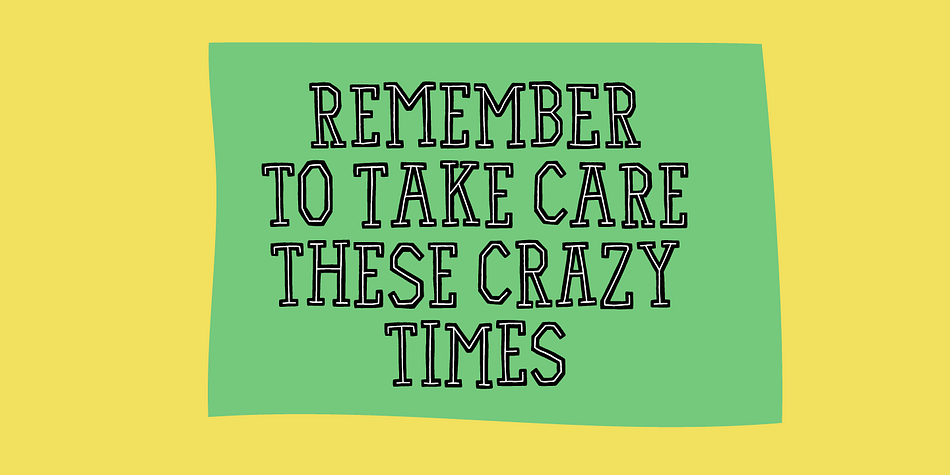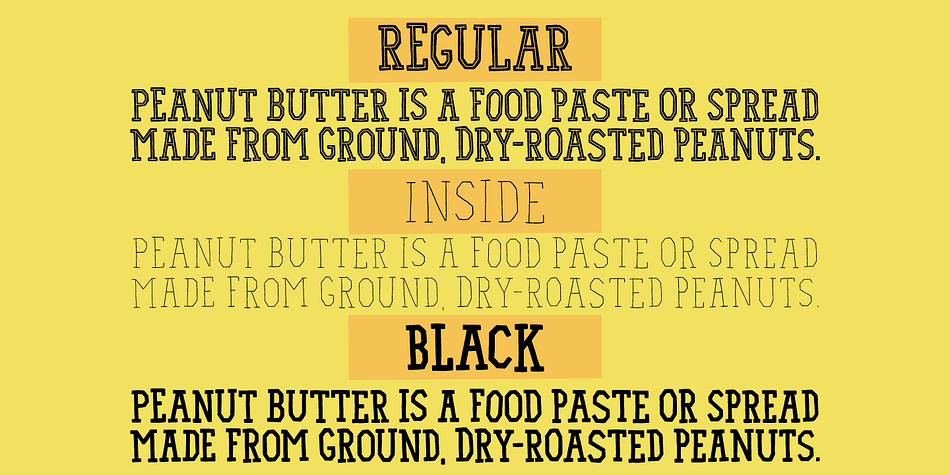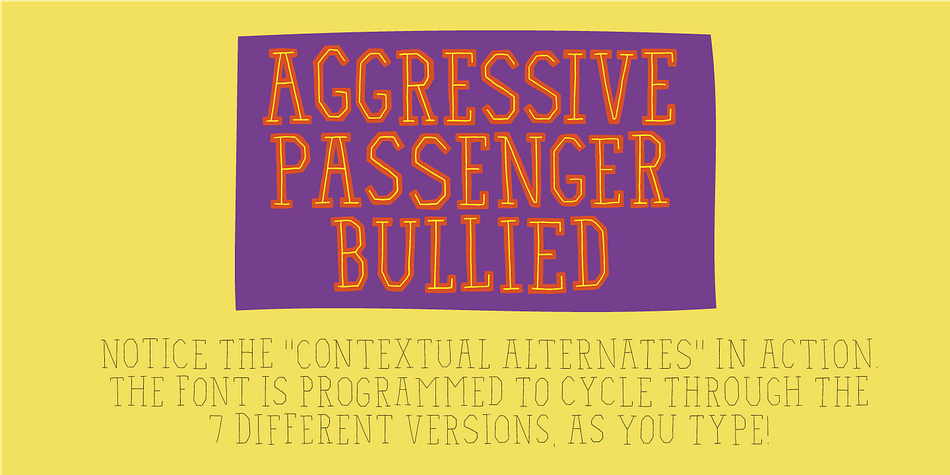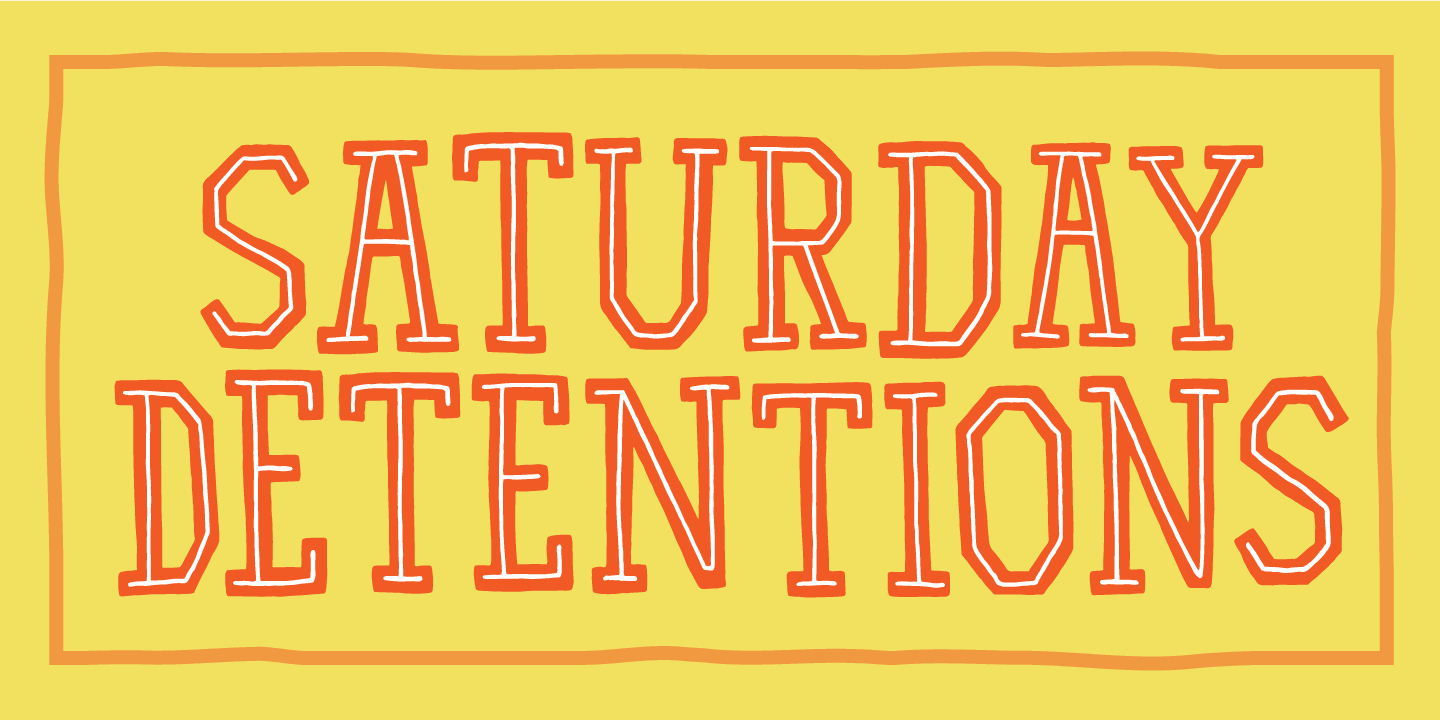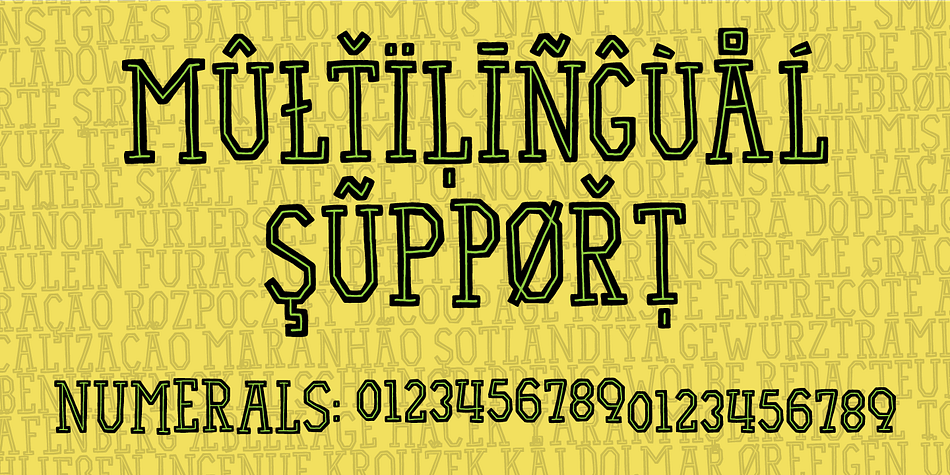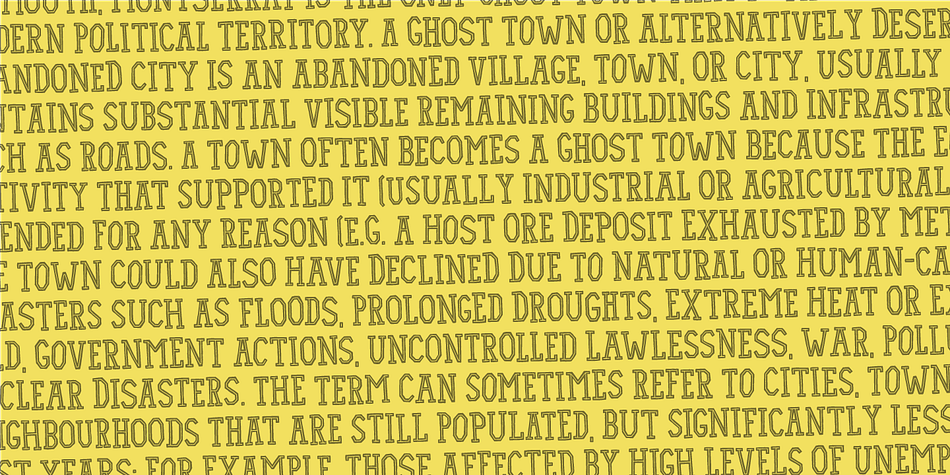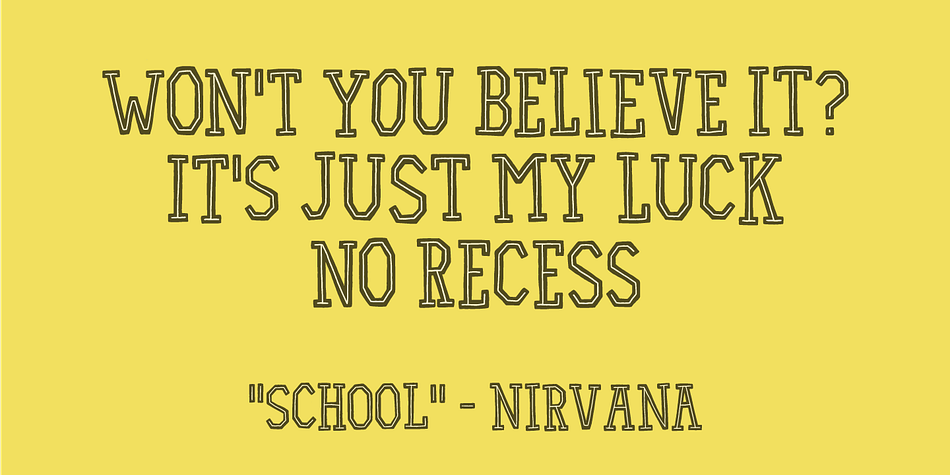
Designed by Jakob Fischer, Saturday Detentions is a display and hand drawn font family. This typeface has three styles and was published by Bogstav.
Saturday Detentions is based on the classic serif “High School” style. However, this version is handmade and a bit rugged here and there - and loose in a legible/organic way. I’ve added 7 different versions of each letter and they automatically cycle as you type - or you can manually choose the one you prefer from the glyph menu.